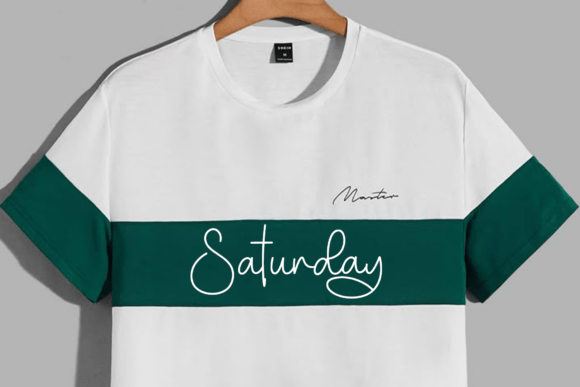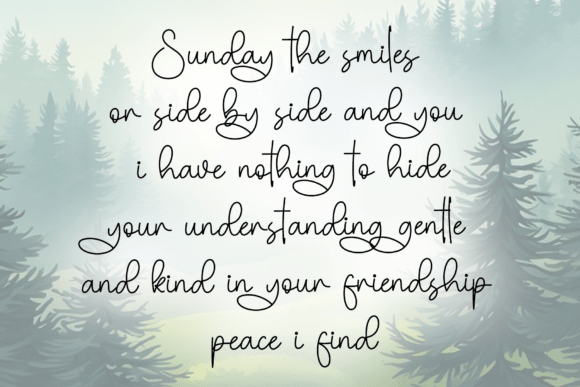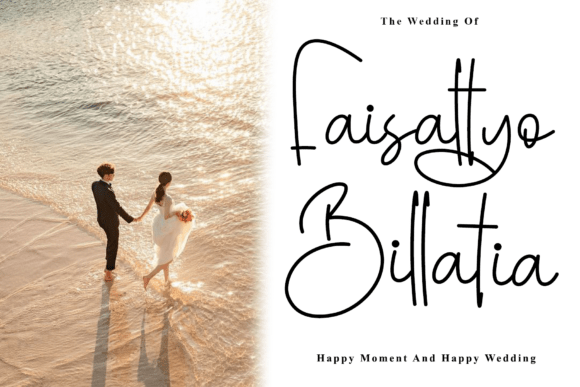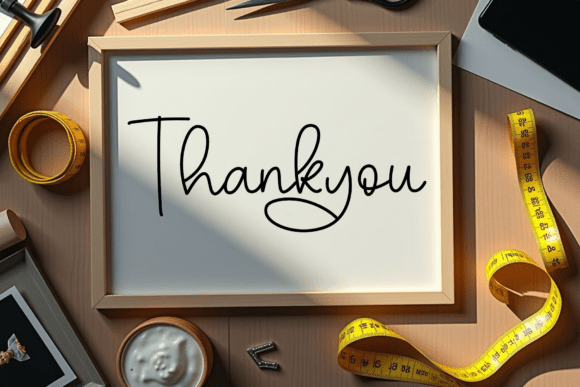
The Fullytiming Font: A Timeless Choice for Creative Designs
I’ll never forget the moment I stumbled upon the Fullytiming font while working on a branding project for a client’s boutique business. I had tried countless fonts, but none seemed to capture the essence of her elegant and playful brand. That was until I saw Fullytiming – its lovely, handwritten curves and unique touches instantly won me over. In this article, I’ll share my experience with this beautiful font, its features, and how to make the most of it in your designs.
An Honest Review of Fullytiming Font
What I Love About Fullytiming ✨
- 💫 Unique and beautiful touch on every letter, making it perfect for eye-catching designs
- ✅ Highly versatile and suitable for various design projects, from logos to quotes
- 🎨 Great for creating a personal and approachable brand feel
- 👍 Easy to read and understand, even in smaller font sizes
While Fullytiming is an amazing font, there are a few things to keep in mind:
- 🤔 Some letters may require manual kerning for optimal spacing
- ⚠️ May not be suitable for very formal or corporate designs, as it has a more playful feel
- Experiment with OpenType features, such as stylistic alternates, to add more personality to your text
The Story Behind Fullytiming Font
Fullytiming was designed with the intention of creating a timeless, handwritten font that would bring a personal touch to designs. The designer aimed to craft a font that was both elegant and playful, making it perfect for a wide range of creative projects. With its unique and beautiful touches, Fullytiming has become a popular choice among designers and crafters.
Q: What type of designs is Fullytiming best suited for?
A: Fullytiming is a versatile font that can be used for various design projects, including logos, branding, quotes, and more. Its elegant and playful feel makes it perfect for creative and feminine designs.
Q: Is Fullytiming a difficult font to read?
A: No, Fullytiming is a highly legible font, even in smaller font sizes. Its clear and elegant letterforms make it easy to read and understand.
Q: Can I use Fullytiming with other fonts?
A: Yes, Fullytiming can be paired with other fonts to create a unique and interesting contrast. Experiment with different font combinations to find the perfect match for your design.